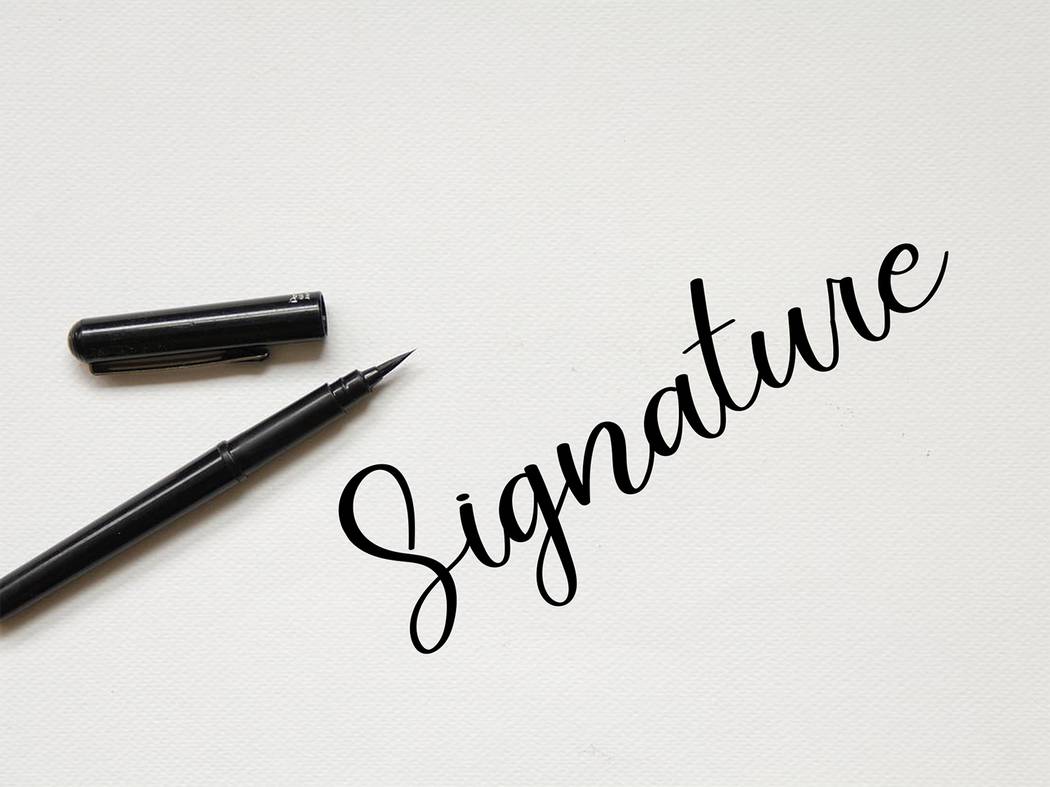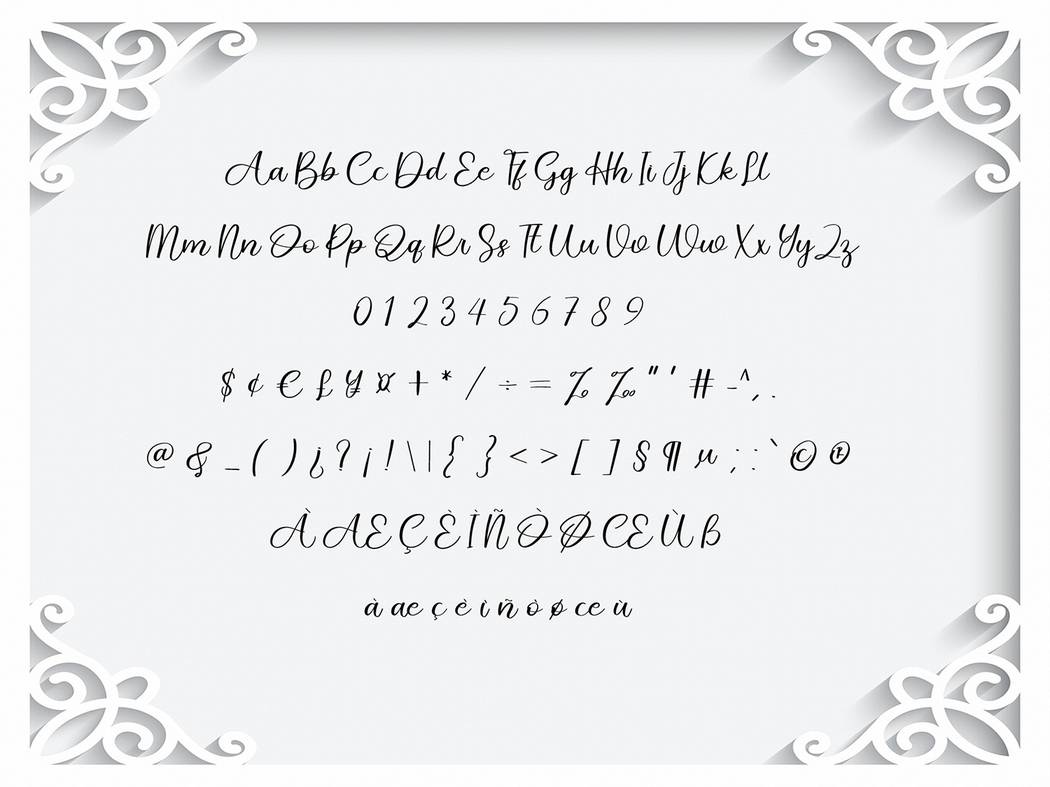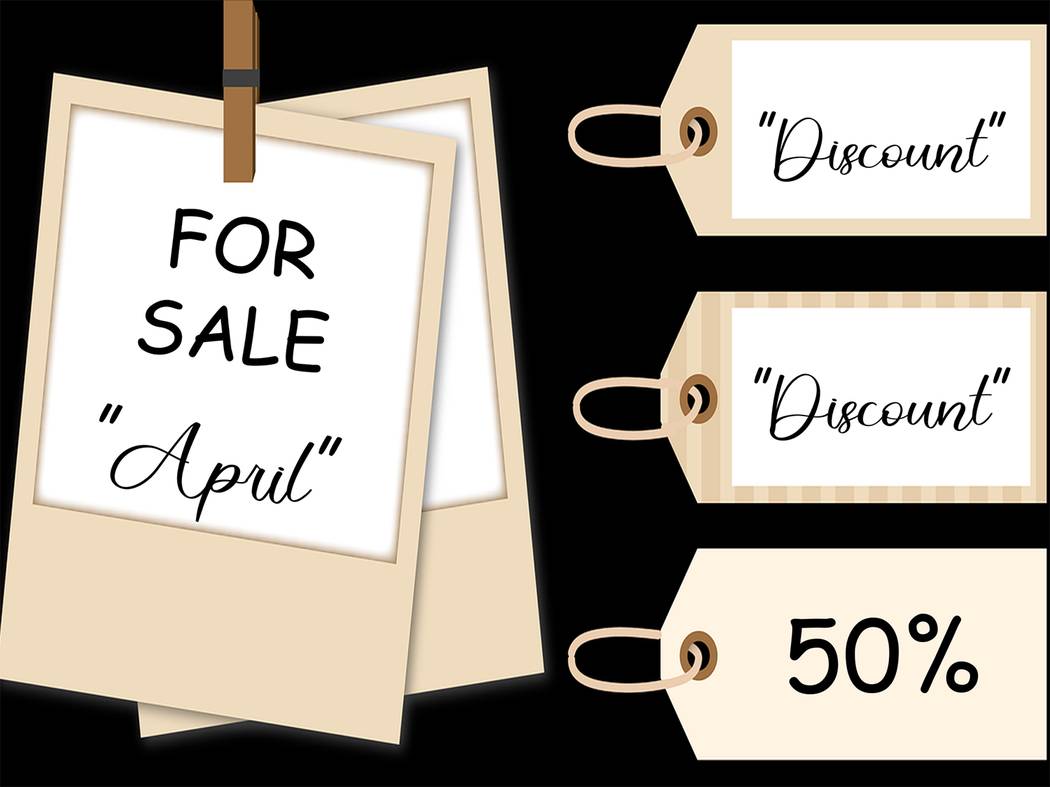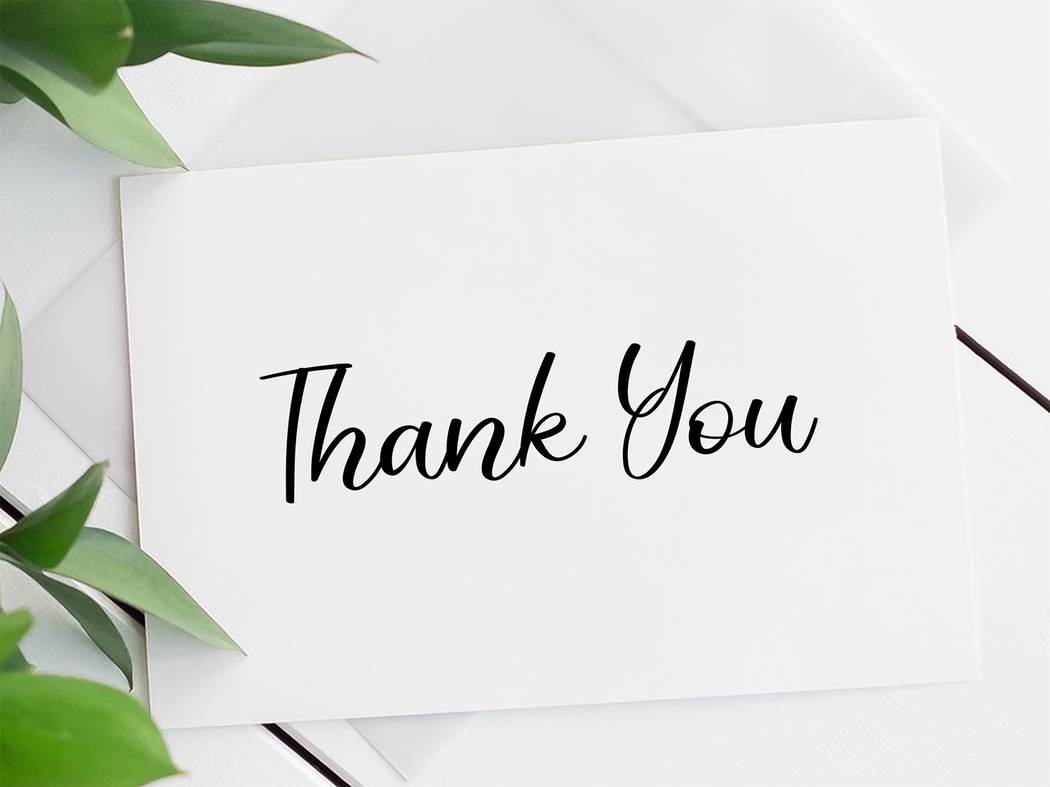
Home Stay is a charming script font with a light, elegant stroke and smooth, flowing letterforms that convey a warm and inviting personality. Its delicate curves and handwritten style make it perfect for branding, invitations, and feminine design projects that seek a personal, artistic touch. This font works beautifully in headlines and logos where a graceful and intimate feel is desired.
Home Stay Font
About Home Stay Font